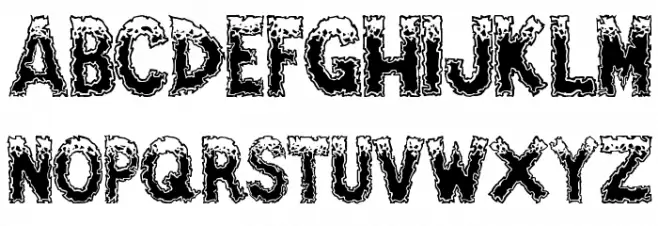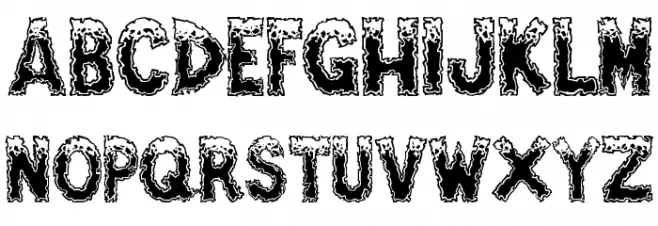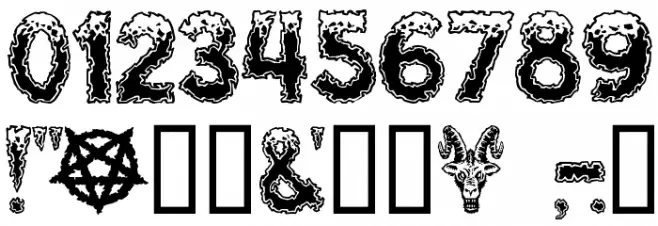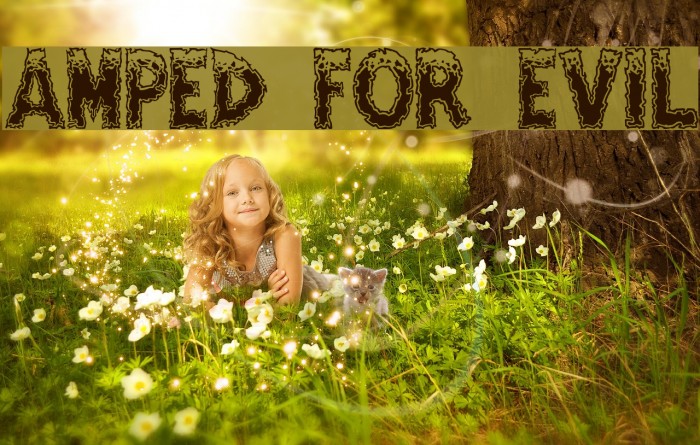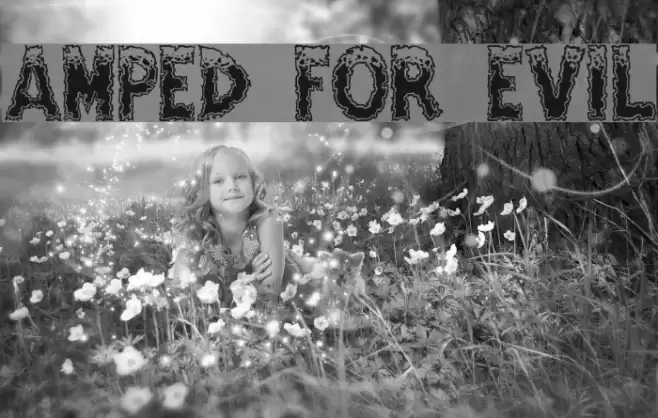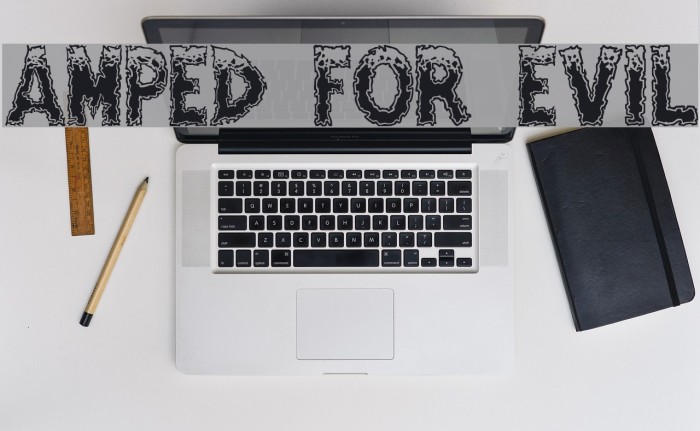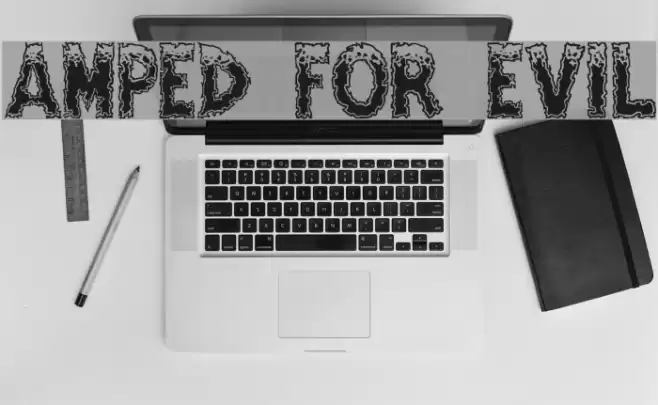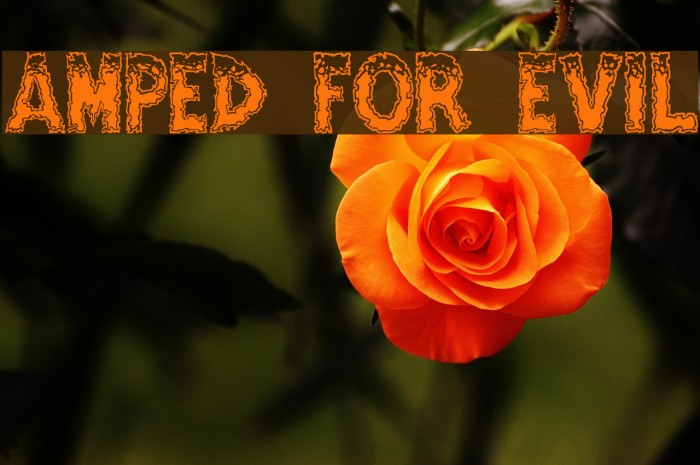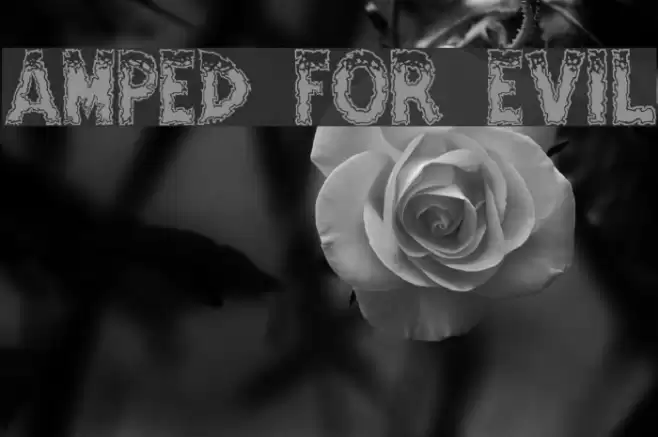
Amped For Evil Font
AMPED FOR EVIL is a *FREE* font inspired by Wollongong, Australia Punk/Hardcore band DYSTEMPA. Capital letters and basic punctuation are provided, along with a couple special dingbats (* and #) questions/comments: ryan_splint@yahoo.com